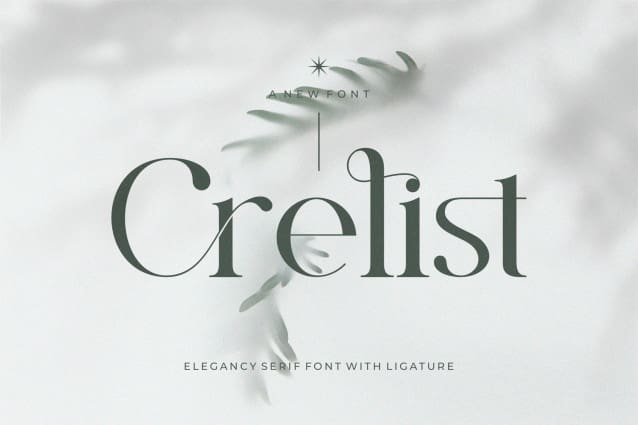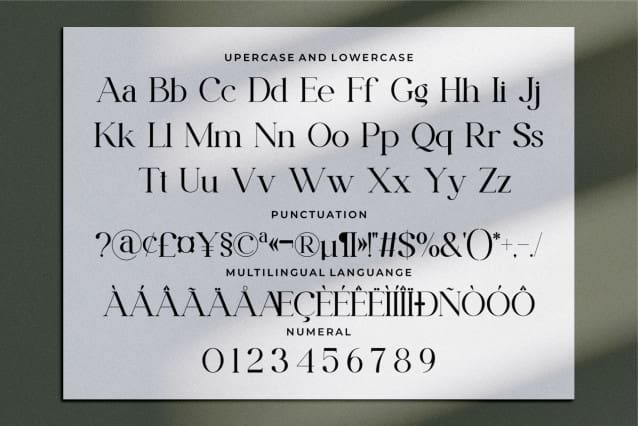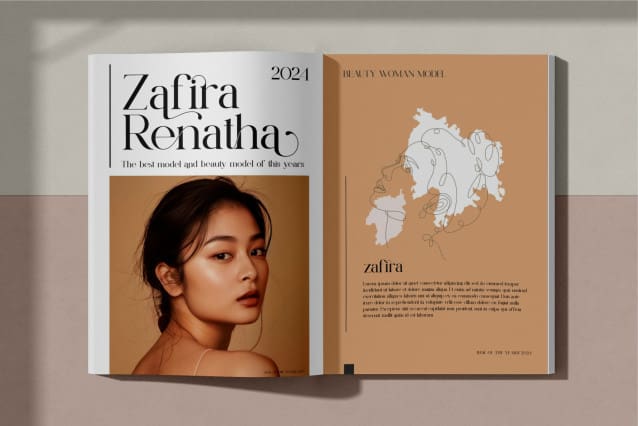
Crelist Font
Crelist Font is a balanced, smooth, elegant and stylish serif font. This font has a beautiful character. This font is perfect for invitation card designs, company logos, movie titles, movie names, business cards, book titles, brand names and various other designs. Crelist Serif is a smooth serif font that exudes sophistication and elegance. Its stylish alterations and ligatures make this font a perfect partner for any project.